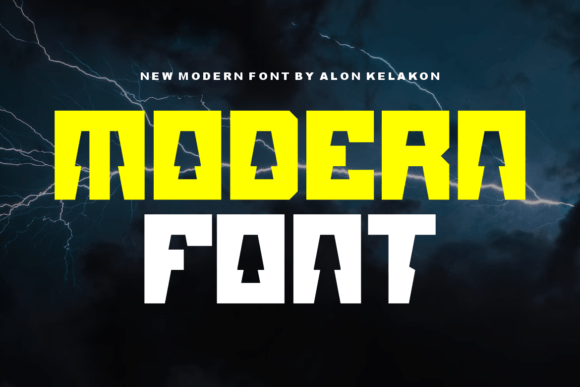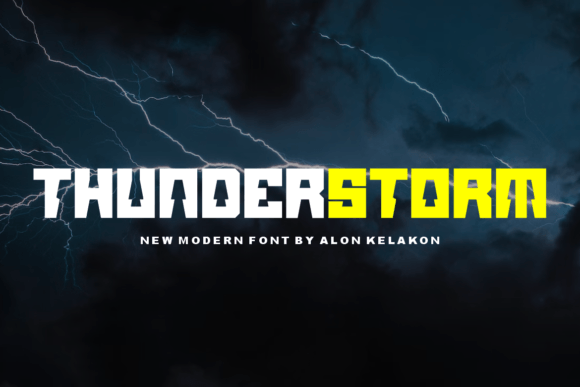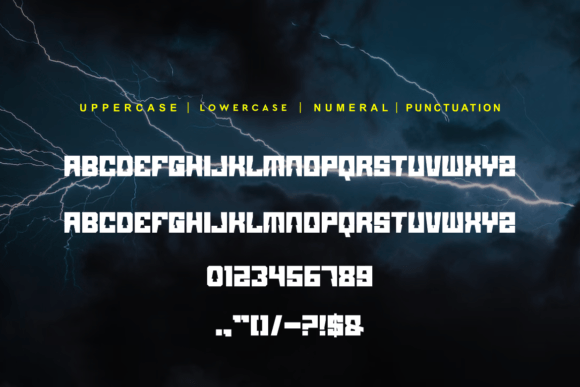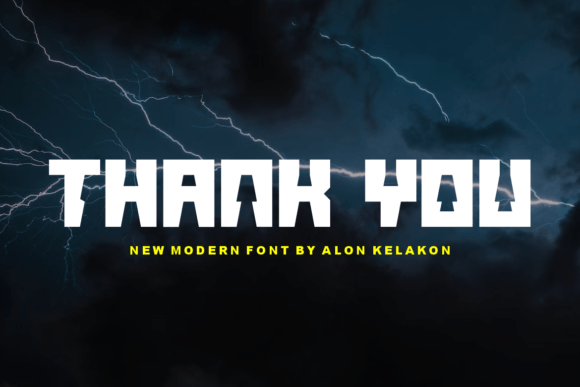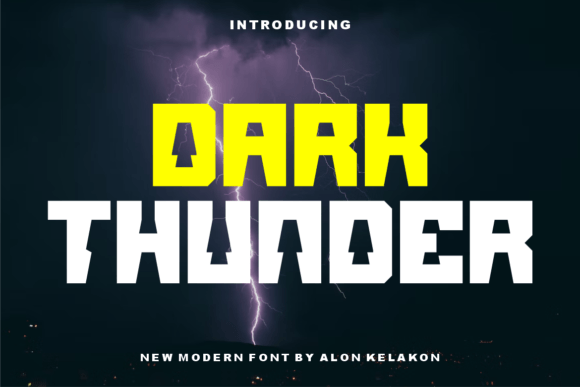
Unleash the Power of Dark Thunder Font: A Modern, Bold, and Assertive Display Font
Are you tired of using the same old fonts in your designs? Look no further than the Dark Thunder Font, a cool and unique display font that’s sure to make your projects stand out. With its modern, bold, and assertive style, this font is perfect for designers and crafters looking to add a touch of edginess to their work.
What is Dark Thunder Font?
Dark Thunder Font is a display font that’s designed to make a statement. Its bold and assertive style makes it perfect for headlines, titles, and other design elements where you want to grab the attention of your audience. The font’s modern and sleek design ensures that it will fit in perfectly with a wide range of design ideas, from minimalist and elegant to bold and edgy.
Key Features of Dark Thunder Font
So, what makes Dark Thunder Font so special? Here are just a few of its key features:
- Unique and Cool Design: Dark Thunder Font has a one-of-a-kind design that’s sure to turn heads. Its bold and assertive style makes it perfect for designers who want to add a touch of edginess to their work.
- Modern and Sleek: The font’s modern and sleek design ensures that it will fit in perfectly with a wide range of design ideas.
- High-Quality: Dark Thunder Font is a high-quality font that’s designed to look great in any design.
- Easy to Read: Despite its bold and assertive style, Dark Thunder Font is easy to read, making it perfect for use in headlines, titles, and other design elements.
Uses for Dark Thunder Font
So, what can you use Dark Thunder Font for? The possibilities are endless! Here are just a few ideas to get you started:
- Headlines and Titles: Dark Thunder Font is perfect for use in headlines and titles, where you want to grab the attention of your audience.
- Logos and Branding: The font’s bold and assertive style makes it perfect for use in logos and branding materials.
- Posters and Flyers: Dark Thunder Font is a great choice for posters and flyers, where you want to make a bold statement.
- Social Media Graphics: The font’s modern and sleek design makes it perfect for use in social media graphics, where you want to stand out from the crowd.
Tips for Using Dark Thunder Font
Here are a few tips for using Dark Thunder Font in your designs:
- Use it Sparingly: Dark Thunder Font is a bold and assertive font, so use it sparingly to avoid overwhelming your design.
- Pair it with Other Fonts: The font pairs well with other fonts, so don’t be afraid to experiment with different combinations.
- Experiment with Different Colors: Dark Thunder Font looks great in a variety of colors, so experiment with different options to find the one that works best for your design.
In conclusion, Dark Thunder Font is a cool and unique display font that’s perfect for designers and crafters looking to add a touch of edginess to their work. With its modern, bold, and assertive style, this font is suitable for a wide range of design ideas. Whether you’re looking to create a bold headline, a sleek logo, or a eye-catching poster, Dark Thunder Font is the perfect choice.